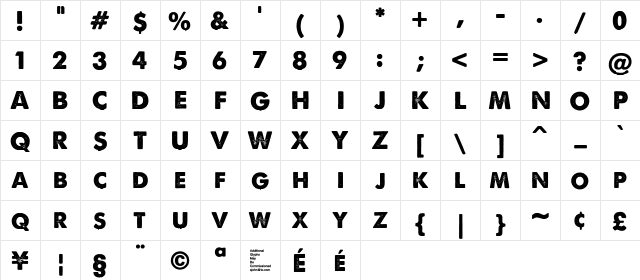
A Love of Thunder Regular
| Foundry | S. John Ross |
| Designer | S. John Ross |
| Year | 2010 |
Design Context for A Love of Thunder Typeface
A Love of Thunder offers clean, dependable letterforms without strong stylistic allegiance, making it a practical choice for designers who need flexibility.